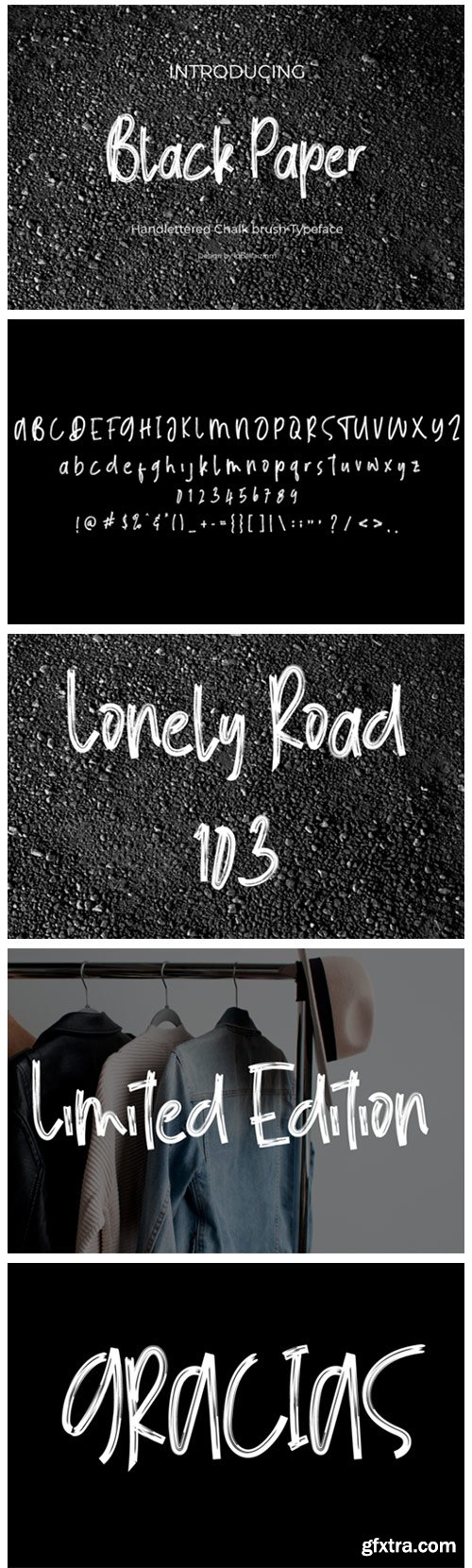
Black Paper Font
Black Paper results out of a stunning pairing of a brush pen and pencil that makes it look incredibly endearing and authentic. Use this gorgeous and unique handwritten font to bring any DIY project to life!